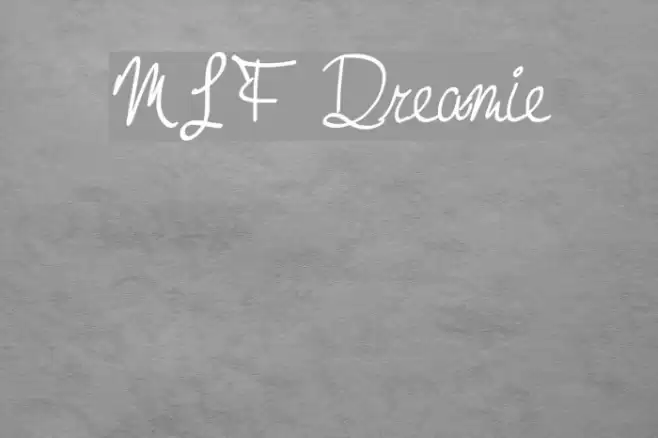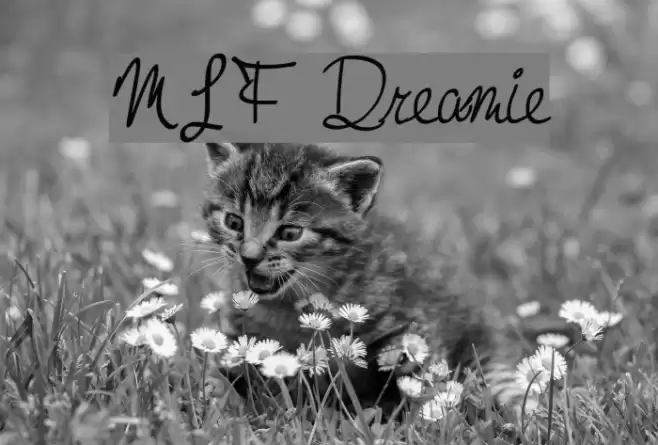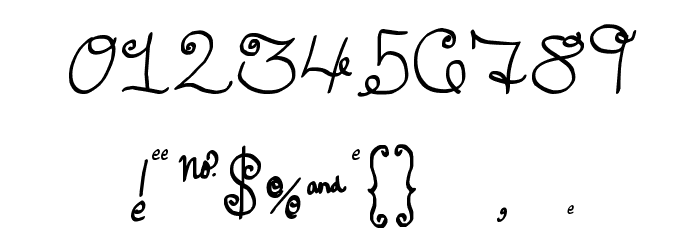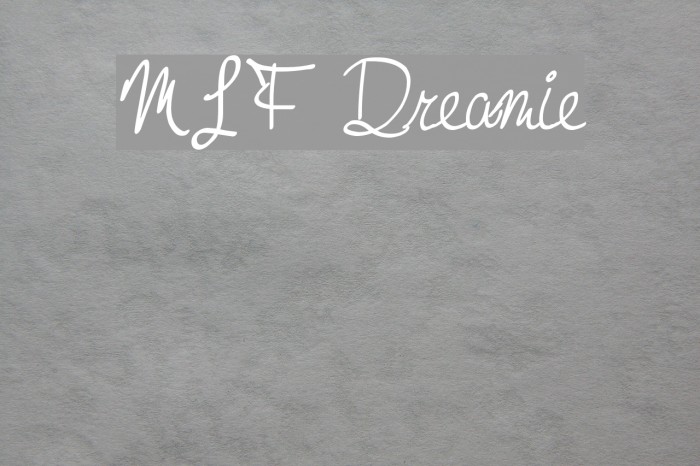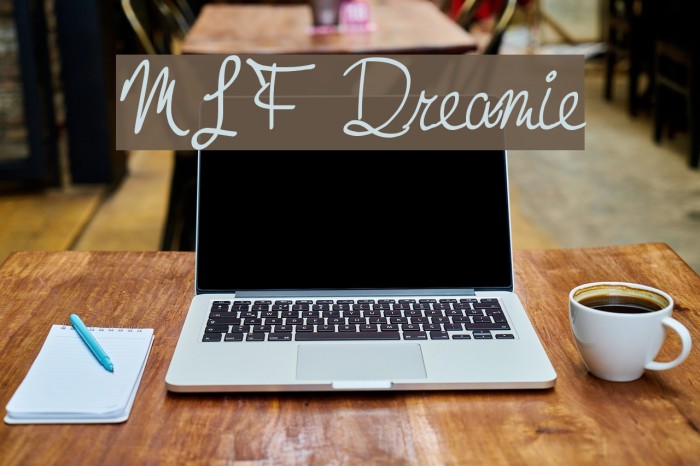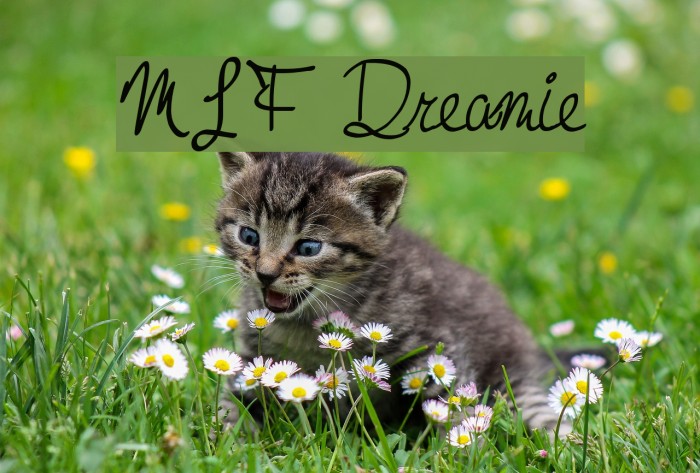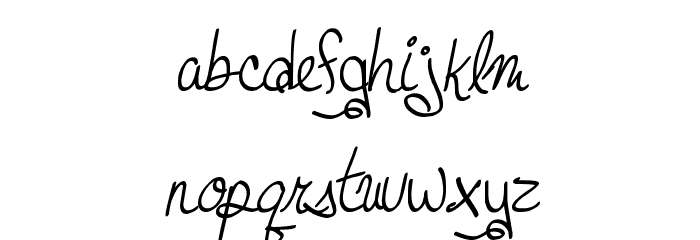
MTF Dreamie Font
MTF Dreamie Description
This font features a whimsical and playful design with a handwritten style. The characters are adorned with unique swirls and loops, giving it a lively and artistic flair. The uppercase letters are bold and expressive, while the lowercase letters maintain a consistent flow, enhancing readability. Numbers and special characters follow the same decorative theme, making the font suitable for creative and informal projects. The overall appearance is both charming and distinctive, perfect for adding a personal touch to any design.
A whimsical, handwritten font with playful swirls and loops from Uncategorized fonts.
- Proposed Projects: Ideal for greeting cards, invitations, children's books, and creative branding.
- Use Case: Logos, Headlines, Creative projects